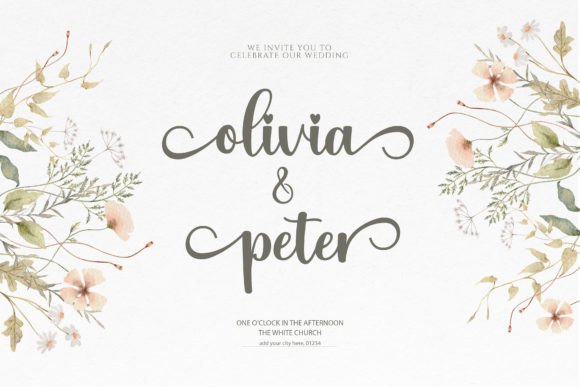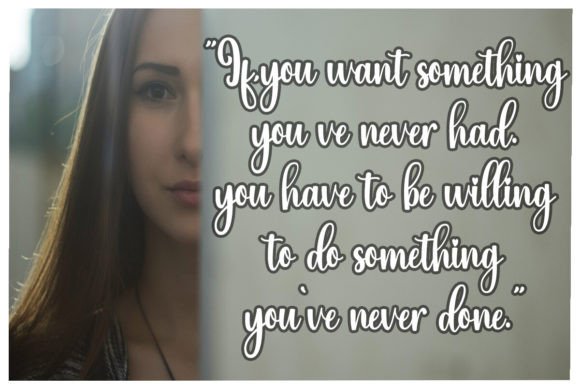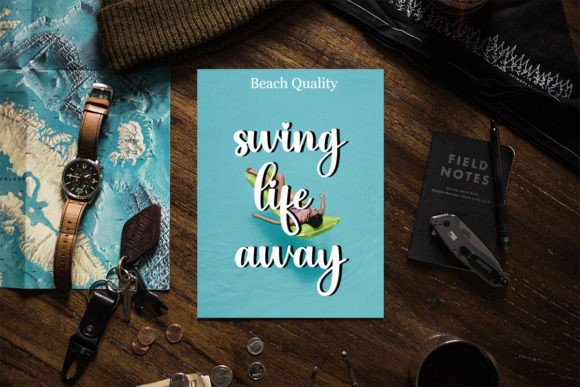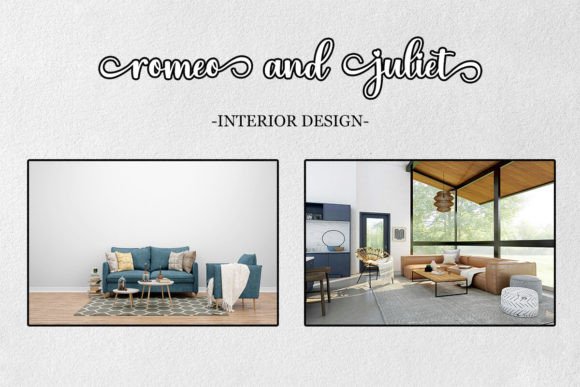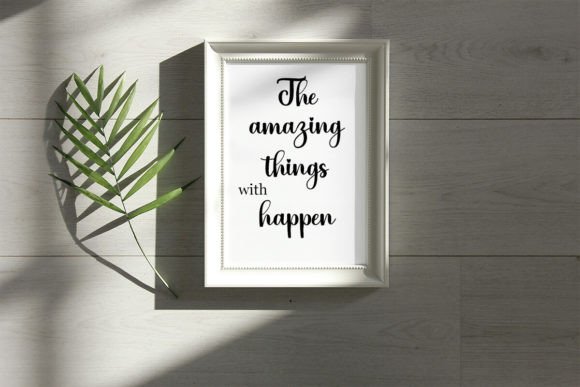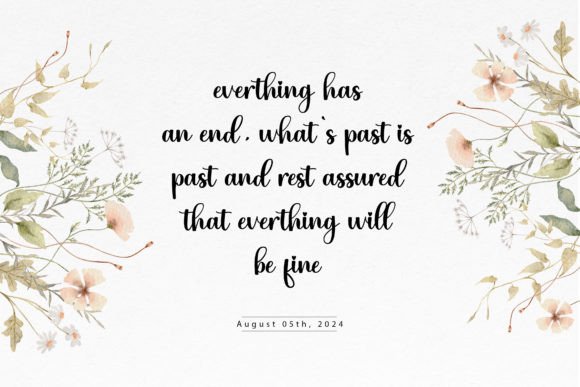
The Elegance of Abigail Script Font: A Designer’s Delight
I’ll never forget the time I was working on a wedding invitation project, and my client asked for a font that was both elegant and playful. I scoured the internet, tried out countless fonts, but nothing seemed quite right. That was until I stumbled upon Abigail Script Font. ✨ It was love at first sight! The casual, beautiful design with swashes won my heart, and I knew I had found the perfect fit for my project.
An Honest Review of Abigail Script Font
• ✨ Elegant and modern calligraphy design
• ✅ Regular style with beautiful swashes
• 🎨 Versatile and can be used for various purposes, such as logos, product packaging, wedding invitations, branding, headlines, signage, labels, signatures, book covers, posters, quotes, and more
While Abigail Script Font is a stunning font, there are a few things to keep in mind: ⚠️
• 🤔 Some users may find the font a bit tricky to pair with other fonts, but with a little experimentation, you can find the perfect combination
• ⚠️ The font may not be suitable for body text, as it’s best used for headlines and titles
The Story Behind Abigail Script Font
Abigail Script Font was designed with the intention of creating a modern, elegant calligraphy font that’s both versatile and beautiful. The designer aimed to create a font that would be perfect for a variety of creative projects, from wedding invitations to branding and headlines. 💫
Q: Can I pair Abigail Script Font with other fonts?
A: Yes, Abigail Script Font can be paired with other fonts to create a unique and visually appealing design. Experiment with different font combinations to find the perfect match for your project.